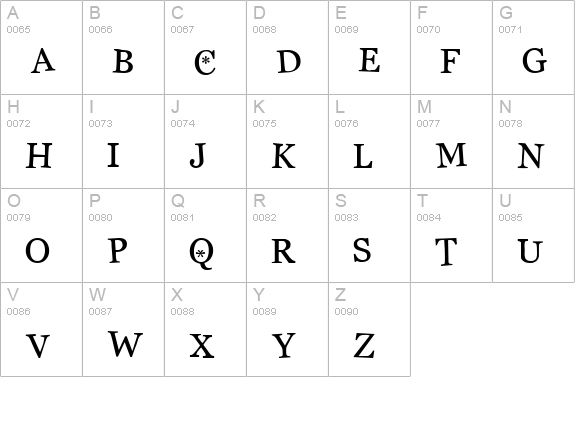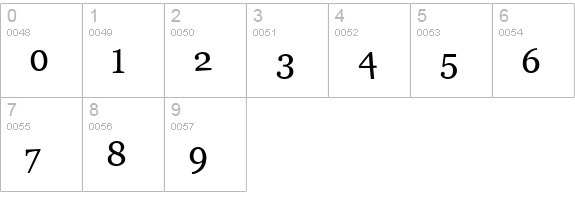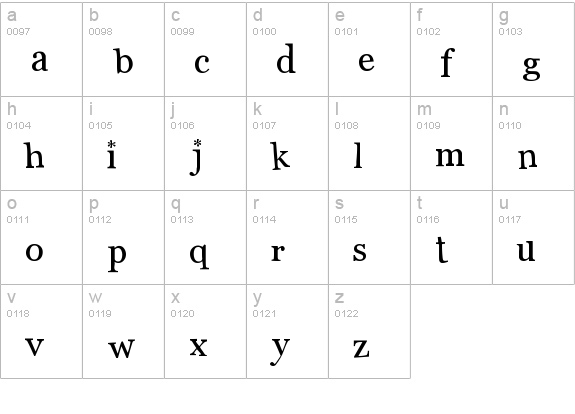
CK Twilight Font Details
Introducing CK Twilight font, a whimsical and elegant typeface that exudes charm and sophistication. With its delicate curves and graceful lines, this font is perfect for adding a touch of magic to your designs. Whether you're creating invitations, branding materials, or social media graphics, CK Twilight will bring a sense of enchantment to your projects. The best part? CK Twilight is completely free to download at FontsMarket.com. You can access this stunning font at no cost and elevate your creations with its unique and captivating style. Embrace the beauty of CK Twilight and let your imagination soar with this enchanting typeface.